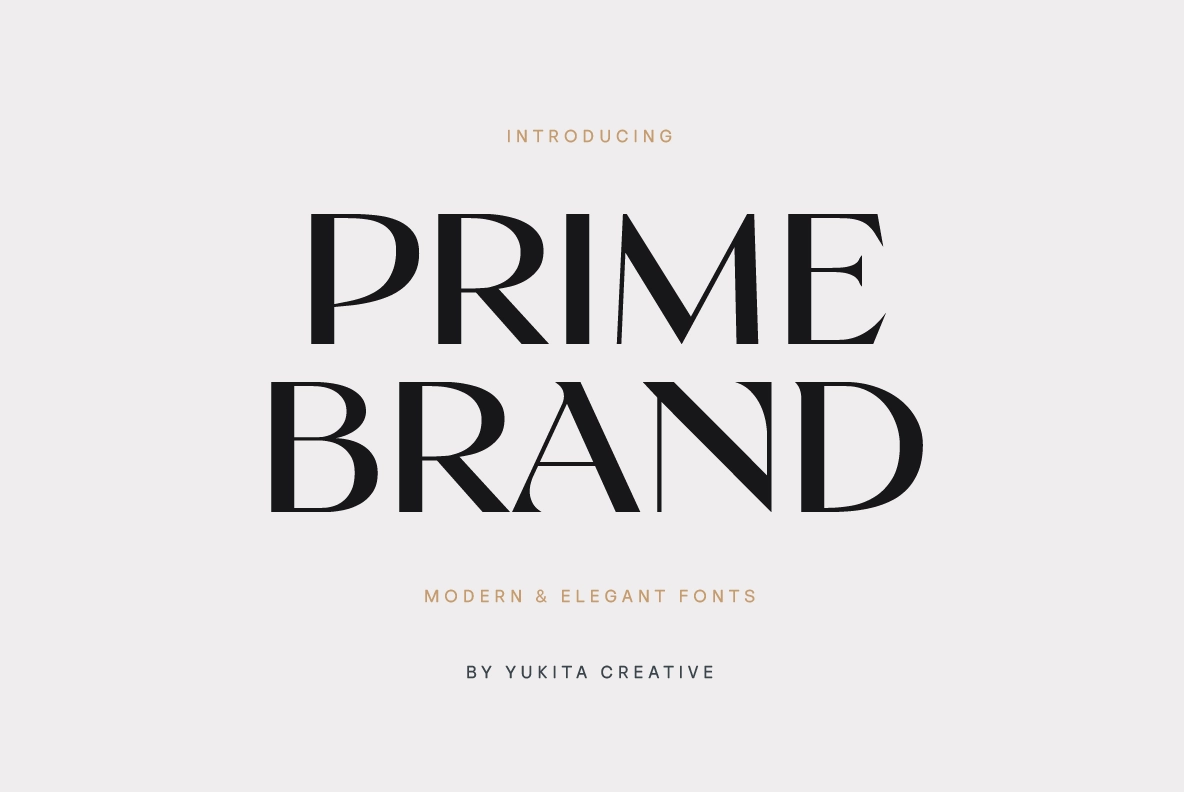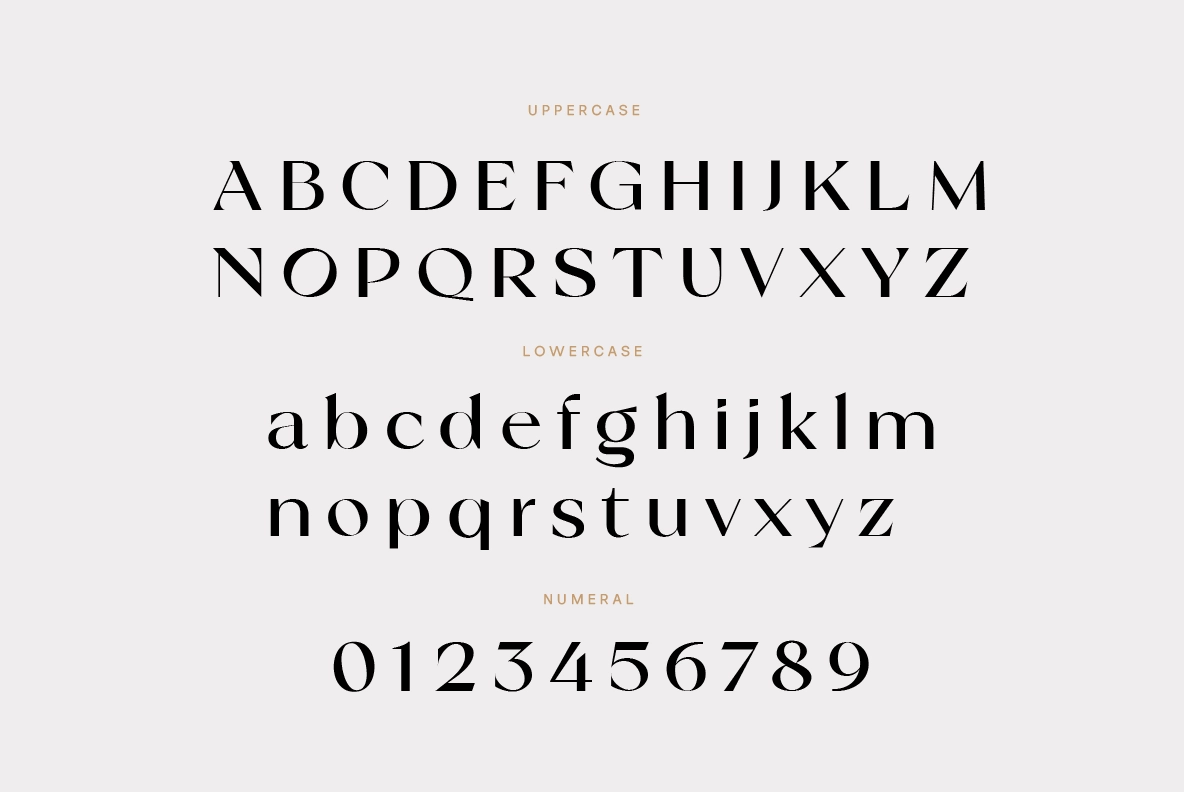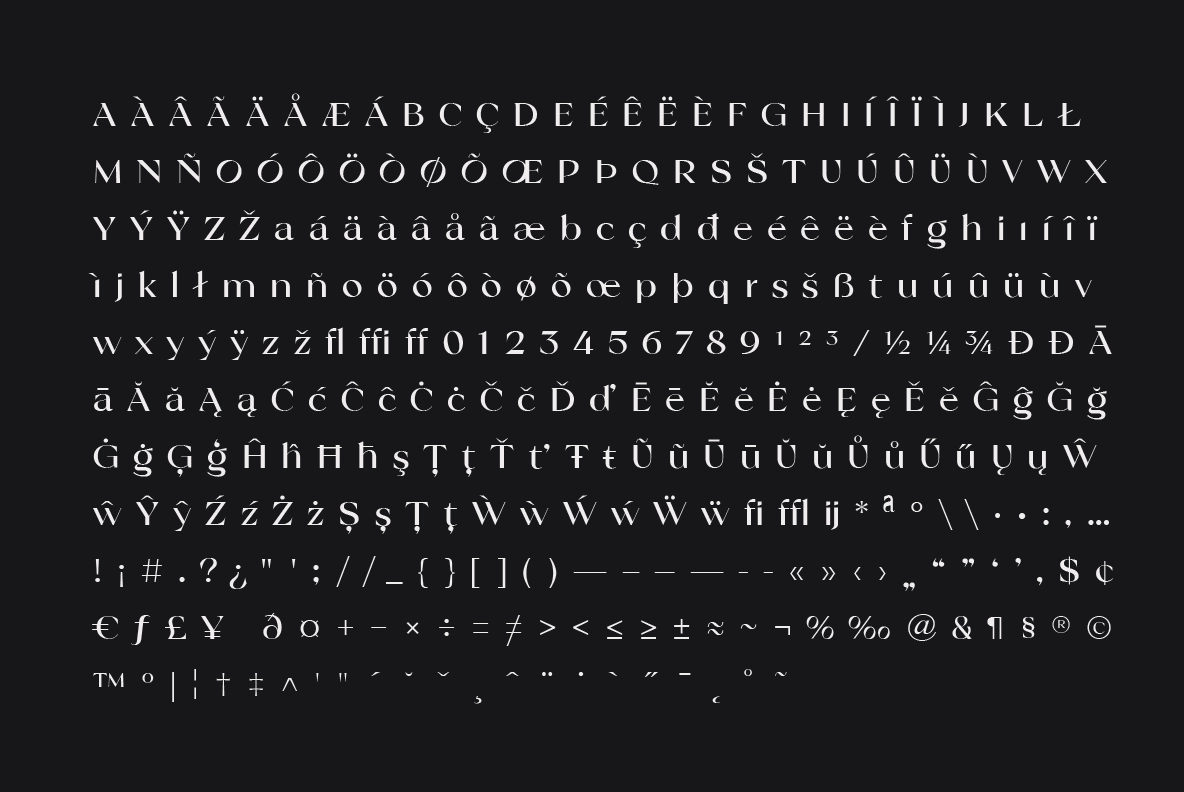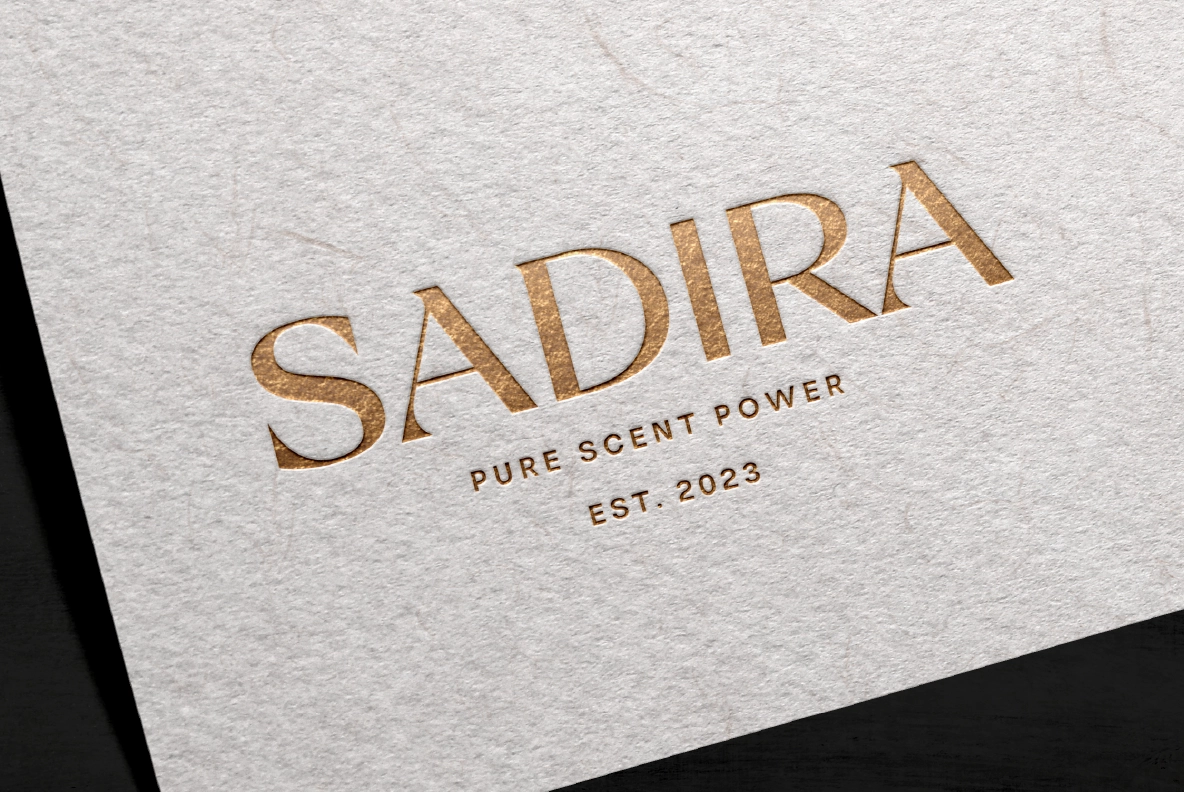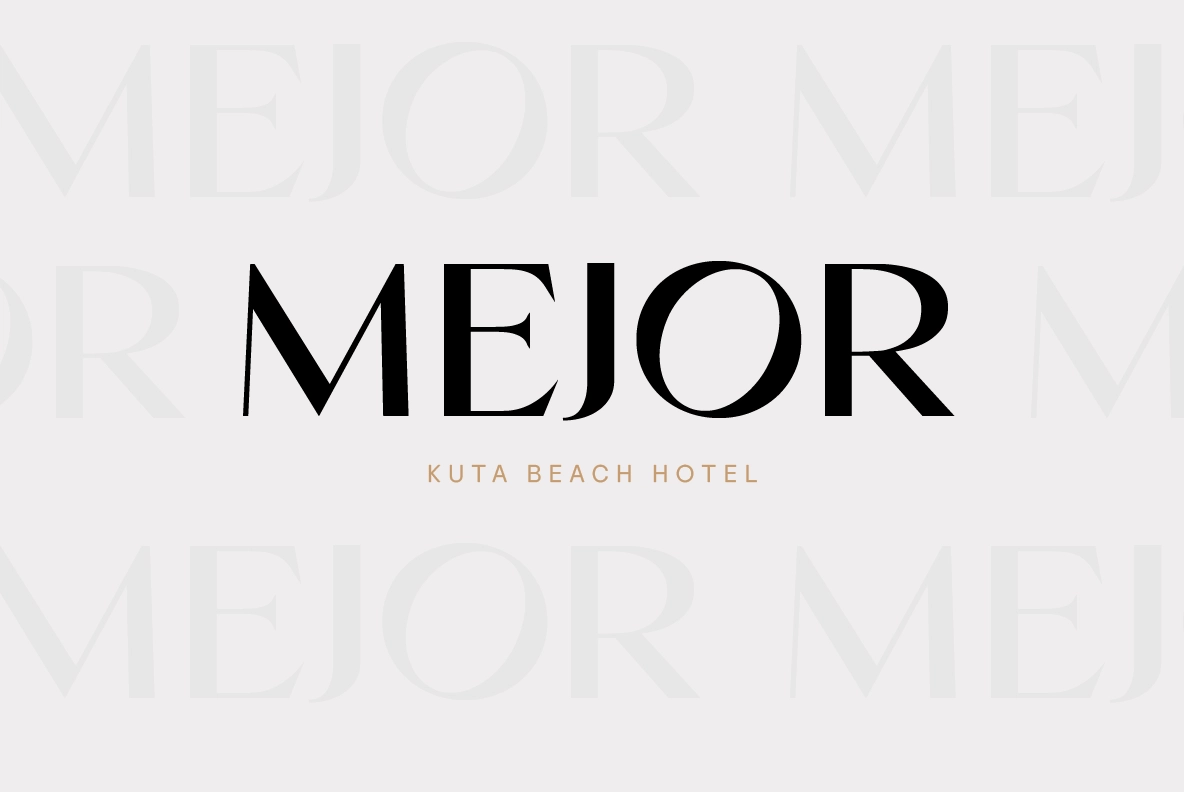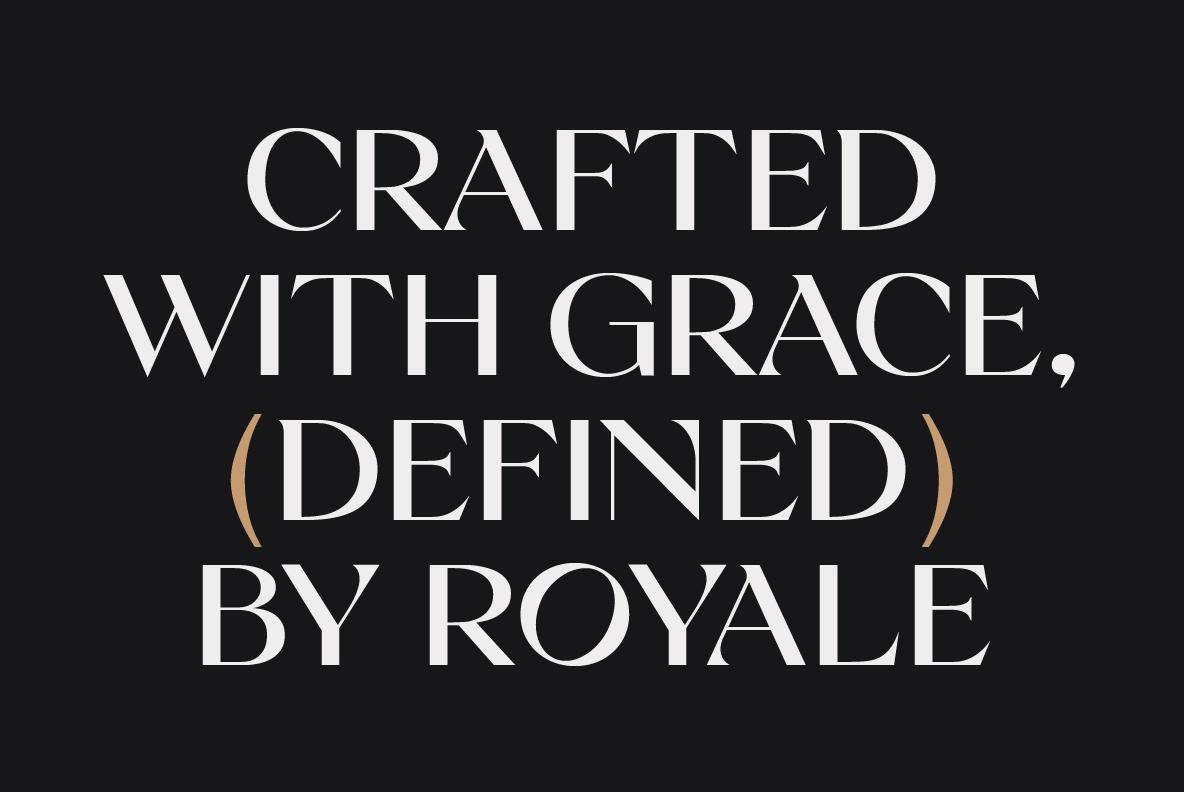
Prime Brand – Elegant Display Font
Prime Brand
This elegant display serif has sharp contrast, slim stems, and sculpted cuts that give every headline a polished editorial edge. The letterforms are clean and poised, with enough drama for premium branding without turning the page into a costume party.
Prime is a strong fit for luxury logos, beauty packaging, fashion labels, boutique identities, perfume branding, magazine covers, website headers, social media graphics, invitations, lookbooks, product launches, and high-end print layouts. Its uppercase characters carry the main visual weight, while the lowercase set, numerals, punctuation, ligatures, and accented characters give designers enough range for complete identity systems.